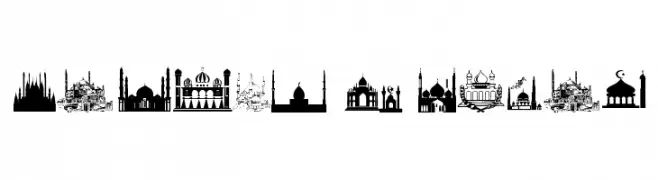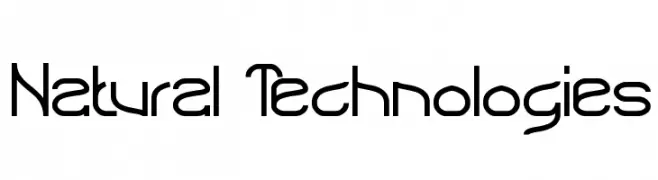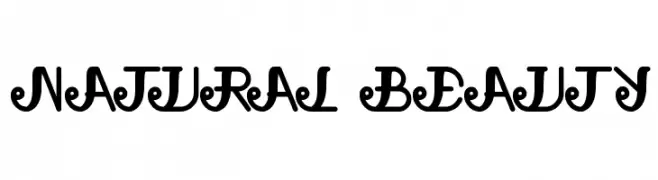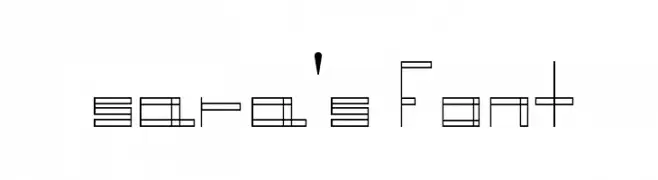
A bold, geometric font with a modern, architectural style.
A geometric, angular font with intricate overlapping lines and bold outlines.
A decorative font with characters resembling twisted branches, ideal for nature or fantasy themes.
A bold, rhythmic font with a tribal-inspired design and thick, rounded strokes.
A bold, ancient-inspired font with geometric shapes and intricate detailing.
A decorative font inspired by Aztec art, featuring bold, intricate designs.
A bold, geometric font with a futuristic and industrial aesthetic.
A casual, handwritten font with a natural and personal touch.
A geometric and abstract font with bold, angular shapes and intricate line patterns.
A smooth, flowing script font with a natural handwritten style.
A bold, angular font with high contrast and an edgy, calligraphic style.
A casual, handwritten-style font with a natural and organic feel.
A bold, decorative pictogram set inspired by Native American iconography.
A bold, calligraphic font inspired by traditional Asian ink styles.
A fluid, cursive script font with elegant, natural handwriting style.
A city skyline-inspired font with characters resembling building silhouettes.
A fluid, cursive script font with a natural handwritten style.
A lively, cursive font with a natural handwritten style.
A whimsical, hand-drawn font with tall, narrow letters and a natural, sketch-like style.
A lively and fluid handwritten font with a natural, spontaneous style.
A geometric, modern font with consistent stroke width and sharp angles.
A pictogram dingbat set themed around Chinese culture.
A decorative symbol font with flamenco-themed silhouettes.
A display font where each character is a different window illustration.